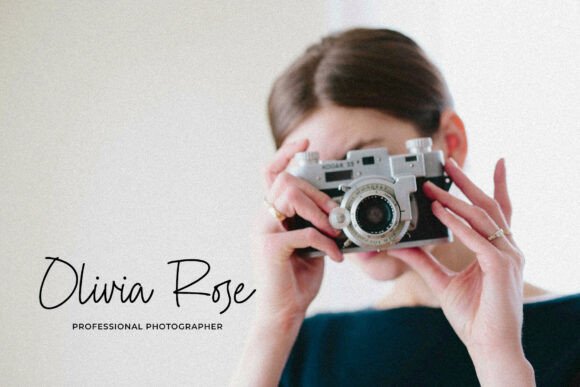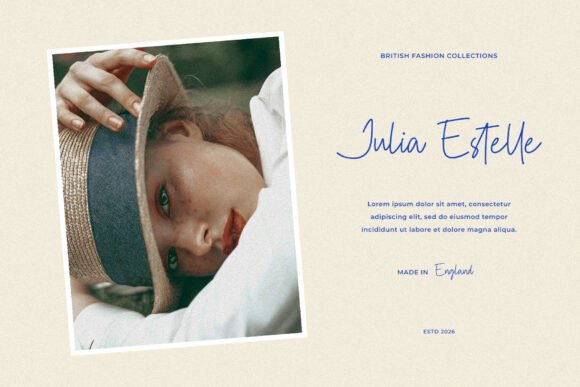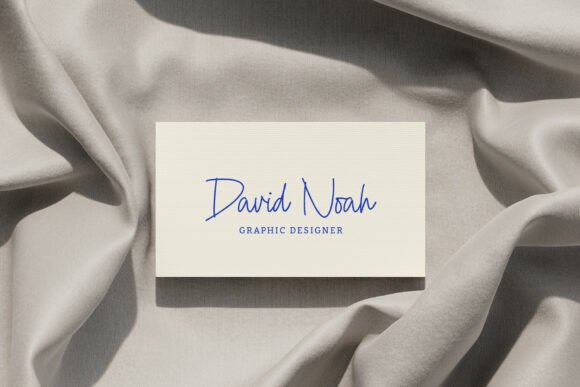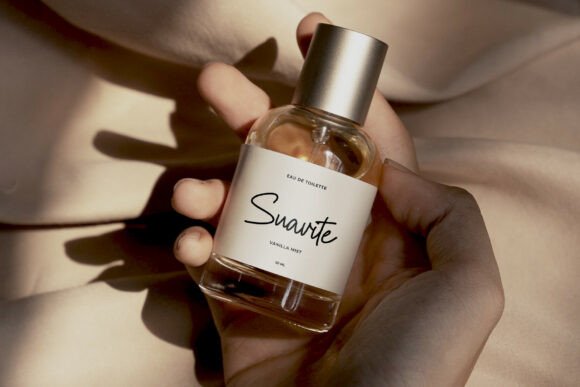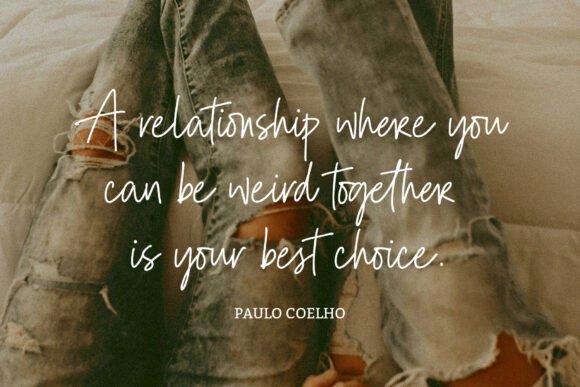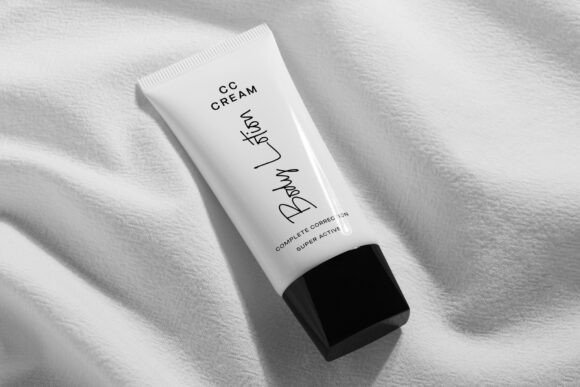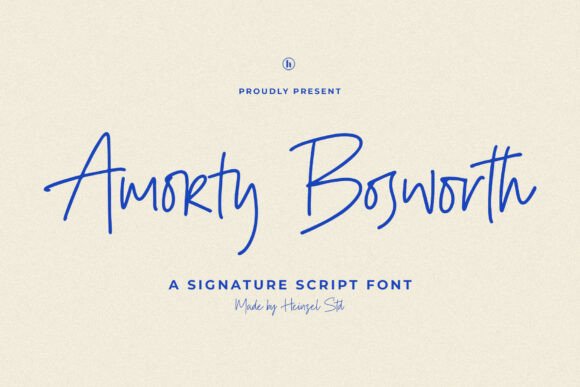
Introducing Amorty Bosworth Font: Elevate Your Designs with Elegant Signature Script
In the world of typography, a well-crafted font can make all the difference in elevating a design project from ordinary to extraordinary. For designers and crafters seeking to add a touch of sophistication and personality to their work, Amorty Bosworth Font is an exceptional choice. This stylish signature script font is designed to capture the natural elegance of modern handwriting, making it perfect for a wide range of applications.
The Characteristics of Amorty Bosworth Font
Amorty Bosworth Font boasts smooth strokes, balanced curves, and a clean signature-style flow that sets it apart from other script fonts. The letterforms are meticulously crafted to exude an authentic and expressive feel, reminiscent of handwritten script. This font’s unique characteristics make it an excellent choice for designers looking to add a personal touch to their projects.
One of the standout features of Amorty Bosworth Font is its versatility. Its elegant and sophisticated design makes it suitable for a variety of applications, including:
• Branding: Create a lasting impression with a custom logo or brand identity that exudes refinement and style.
• Logos: Design a unique and memorable logo that sets your business or product apart from the competition.
• Social Media Graphics: Elevate your social media presence with eye-catching graphics that showcase your brand’s personality.
• Invitations: Add a touch of elegance to your invitations, whether for weddings, parties, or special events.
• Packaging: Make your product stand out on store shelves with custom packaging that features Amorty Bosworth Font.
• Creative Typography Layouts: Experiment with unique typography layouts that showcase the font’s expressive and authentic feel.
Why Choose Amorty Bosworth Font?
With so many fonts available, why choose Amorty Bosworth Font? Here are just a few reasons why designers and crafters are drawn to this exceptional font:
• Elegance: Amorty Bosworth Font brings a level of sophistication and refinement to any design project.
• Authenticity: The font’s handwritten feel makes it perfect for designs that require a personal touch.
• Versatility: Use Amorty Bosworth Font across a range of applications, from branding and logos to social media graphics and packaging.
• Easy to Read: The font’s clean and balanced design ensures that it remains legible, even at smaller sizes.
Tips for Using Amorty Bosworth Font
To get the most out of Amorty Bosworth Font, consider the following tips:
• Pair with Contrasting Fonts: Combine Amorty Bosworth Font with a contrasting font to create visual interest and hierarchy in your design.
• Experiment with Colors: Take advantage of the font’s elegant design by experimenting with different colors and textures.
• Pay Attention to Spacing: Ensure that your design has sufficient spacing to allow Amorty Bosworth Font to breathe and showcase its unique characteristics.
Amorty Bosworth Font is a stylish signature script font that offers designers and crafters a unique opportunity to elevate their design projects. With its smooth strokes, balanced curves, and clean signature-style flow, this font brings a sophisticated and personal touch to any application. Whether you’re working on branding, logos, social media graphics, invitations, packaging, or creative typography layouts, Amorty Bosworth Font is an excellent choice. Its elegance, authenticity, versatility, and readability make it an exceptional addition to any designer’s toolkit.